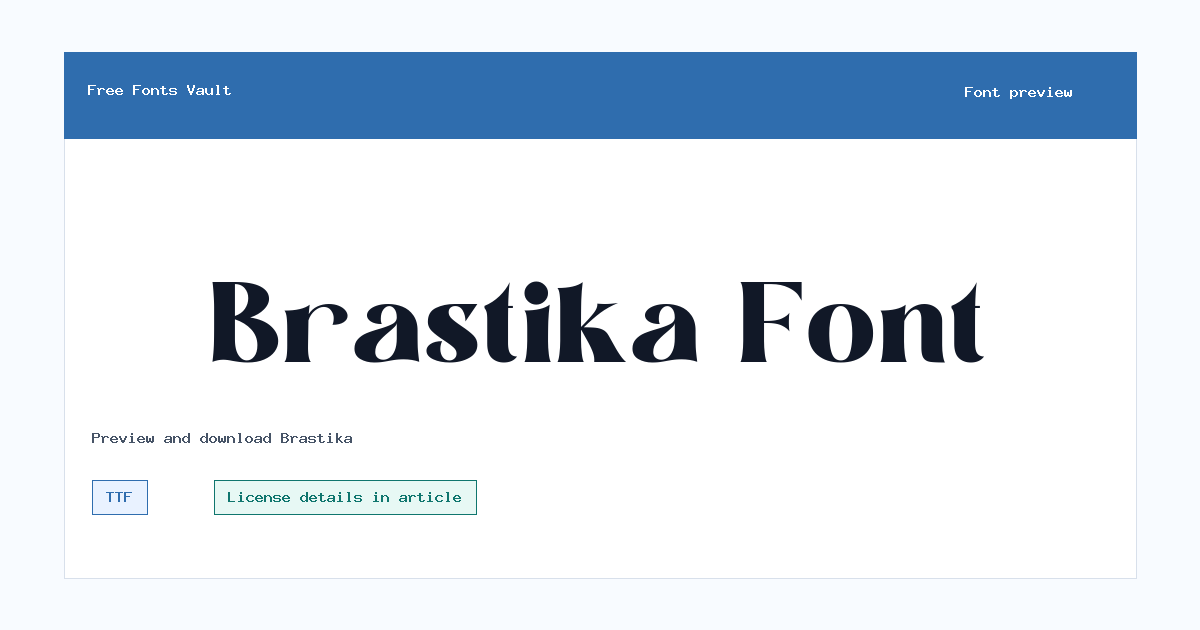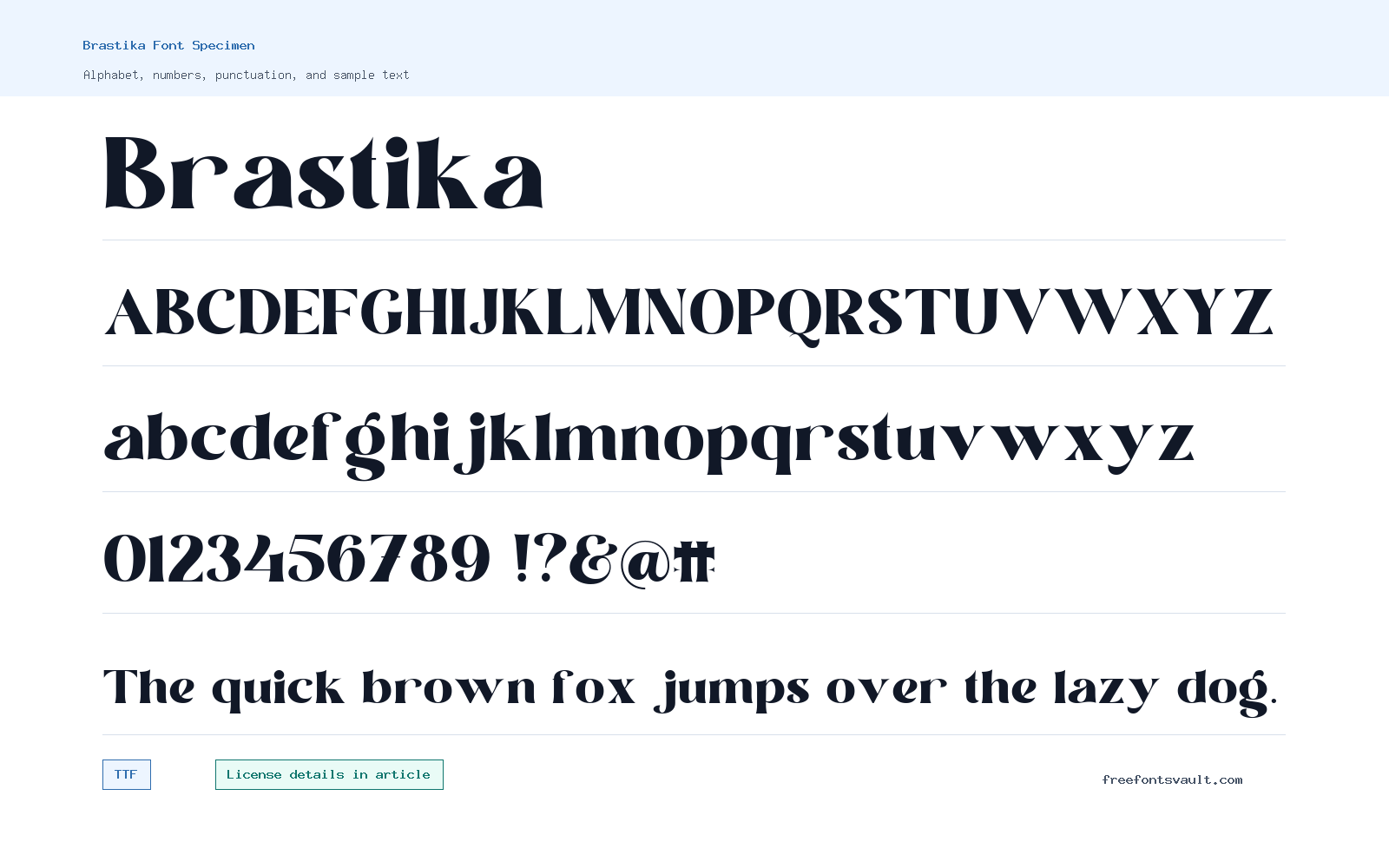
Brastika
Brastika Font
Brastika font.
Brastika is a heavy black display font credited to Putu Eka Hermawan. It is made for short, bold text where the letters need to feel strong immediately, such as posters, thumbnails, titles, labels, and wordmark tests.
About Brastika Font
Brastika comes as a TrueType font file with a 900 weight, giving it a dense black appearance. The style is upright rather than italic, so it works best when you want solid, direct lettering instead of a slanted or handwritten effect.
Use Brastika at larger sizes and with short wording. The heavier the font, the more important spacing becomes. Test your exact headline, brand name, number set, or label in the preview before downloading, especially if the design uses all caps or a narrow column.
For finished layouts, pair Brastika with a simpler companion font. Let Brastika create the main impact, then use a neutral sans serif or readable serif for body copy, descriptions, prices, menus, or captions. That balance keeps the design bold without sacrificing readability.
• Heavy 900-weight display style
• Upright normal style with a strong black appearance
• Single regular variant for quick preview testing
• Best for large display settings rather than long reading text
• Strong visual presence for one-word or short-phrase compositions
• Bold headlines and title text
• Poster and flyer lettering
• Logo drafts and wordmark experiments after license review
• YouTube thumbnails and social media graphics
• Packaging labels, badges, and short promotional text
• Large hero text where readability can be checked at real size
Use Brastika for short, high-impact text. Avoid long paragraphs and very small sizes. If letters feel crowded, increase tracking or reduce the number of words. Always preview punctuation and numbers if they are part of your design. Because the weight is so strong, leave enough margin around the letters. Brastika usually looks cleaner when one short phrase gets the spotlight instead of several competing lines.
Is Brastika good for body text?
No. Its heavy 900 weight is better for headings, logos, posters, thumbnails, and short display use.
Who designed Brastika?
Brastika is credited to Putu Eka Hermawan.